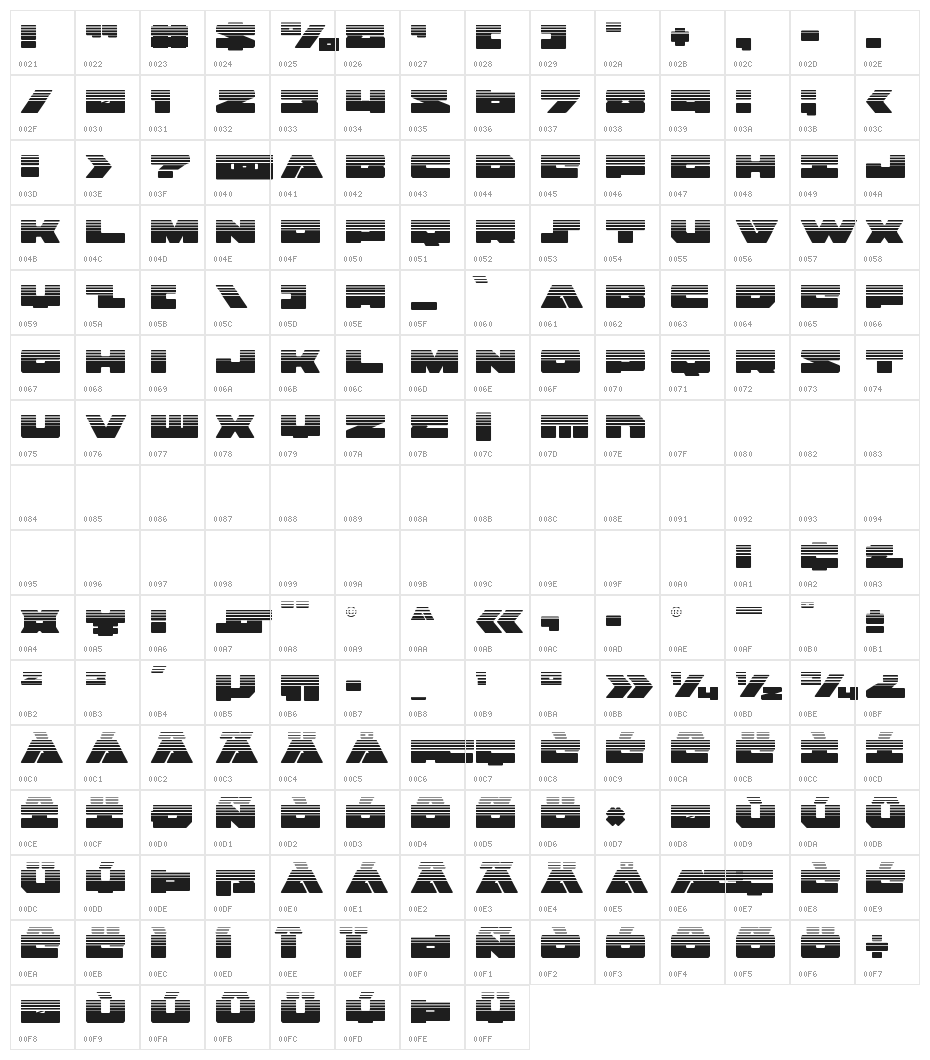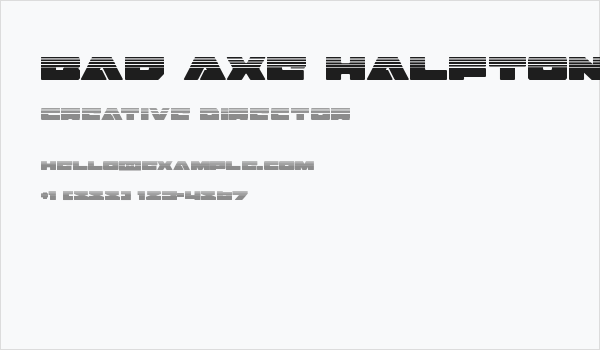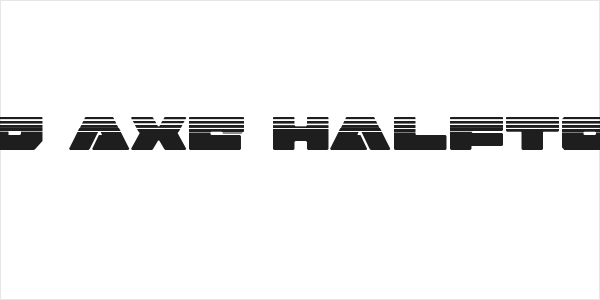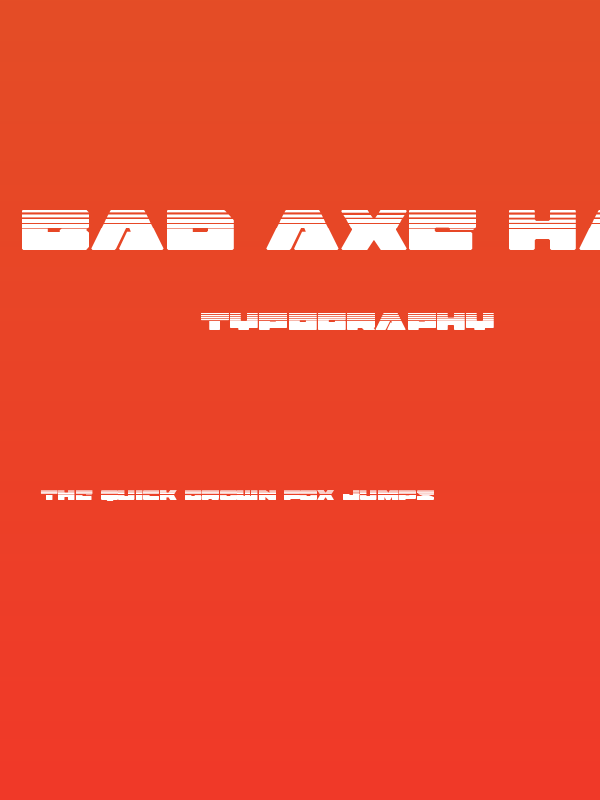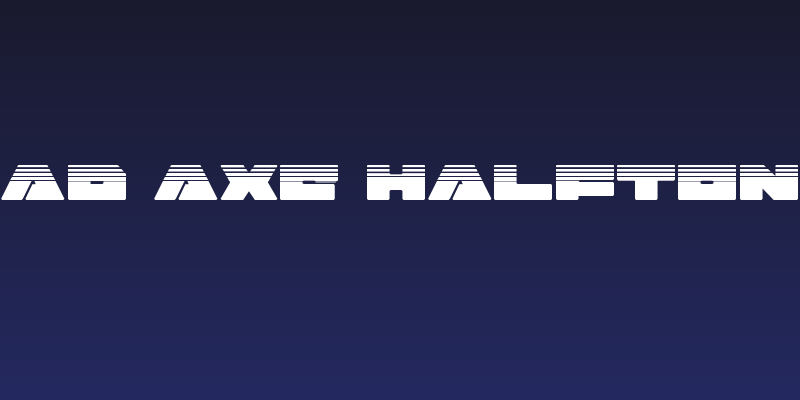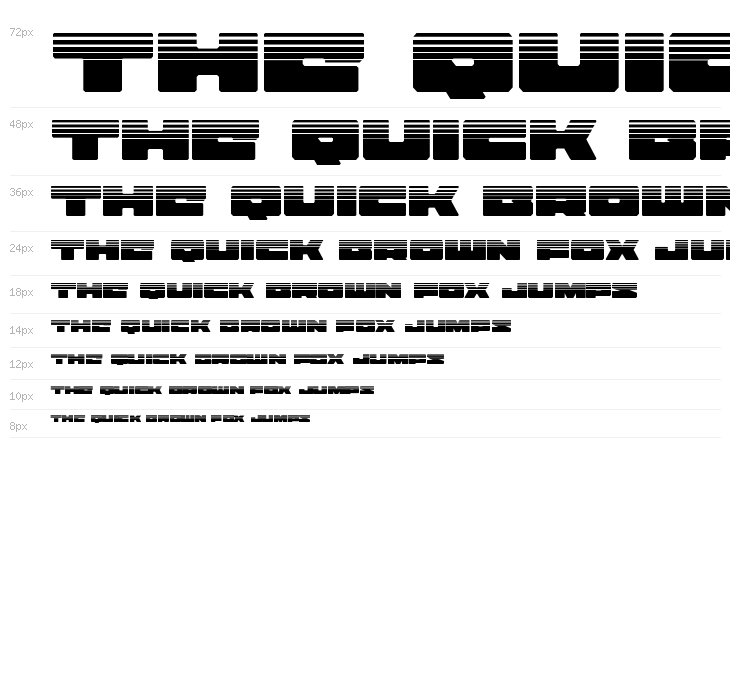
Bad Axe Halftone Font
Bad Axe Halftone Description
This font features a bold, geometric design with a distinctive halftone effect that gives it a modern and edgy appearance. The characters are constructed with horizontal lines that create a sense of movement and depth. The uppercase and lowercase letters maintain a consistent style, with sharp angles and a blocky structure. The numbers and special characters follow the same design principles, ensuring a cohesive look across all glyphs. This font is ideal for projects that require a strong visual impact and a contemporary feel.
| Proposed Projects | Ideal for posters, album covers, branding, and any design project that needs a striking, modern aesthetic. |